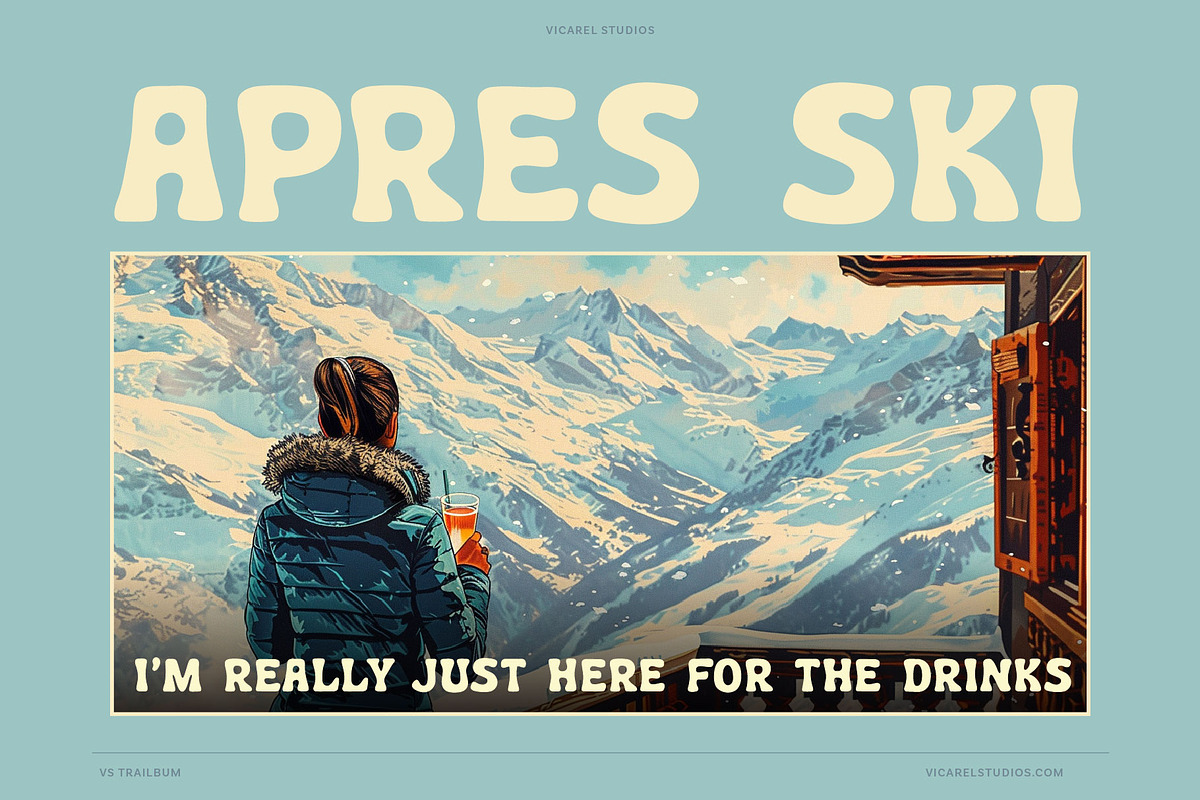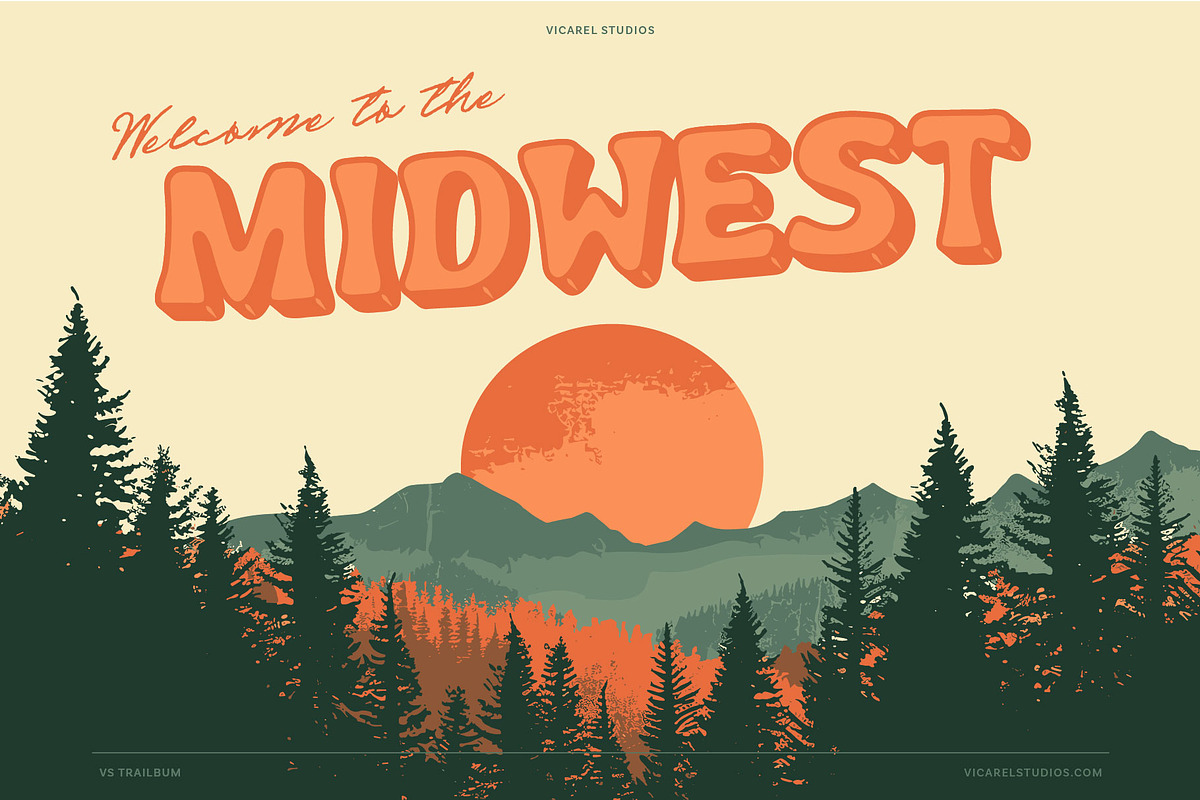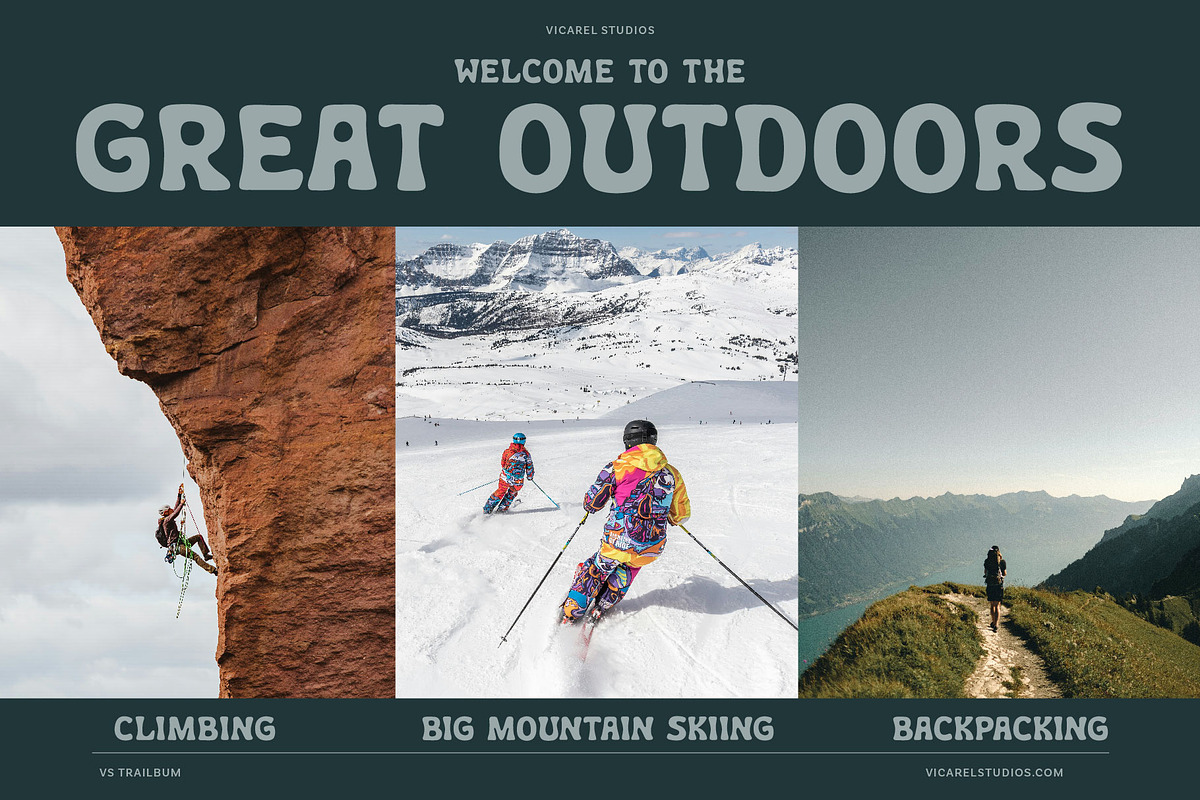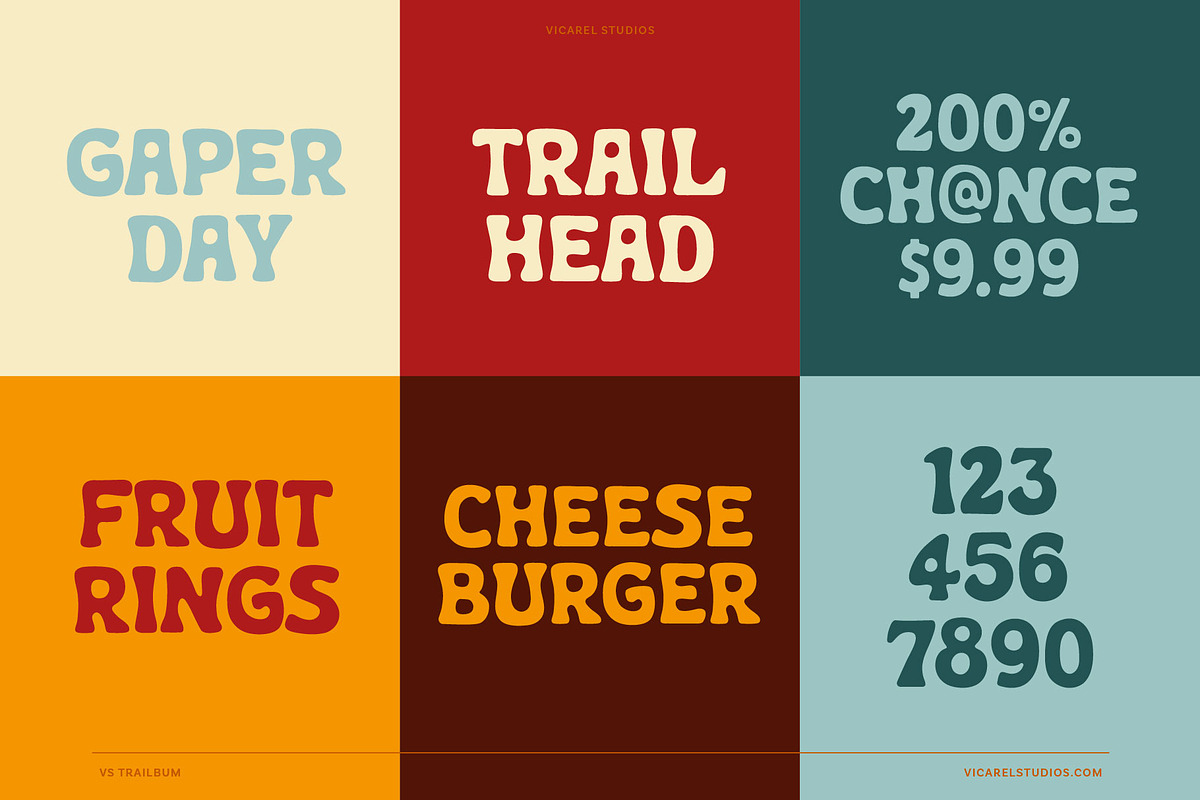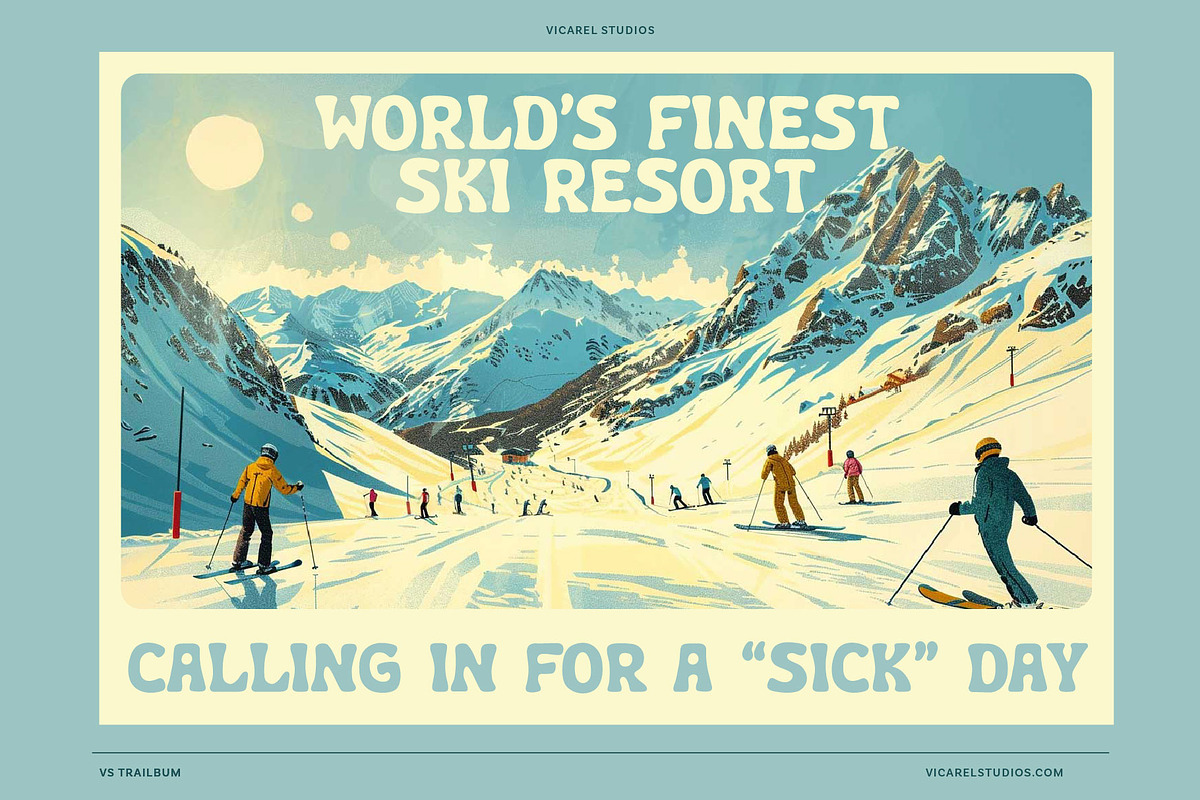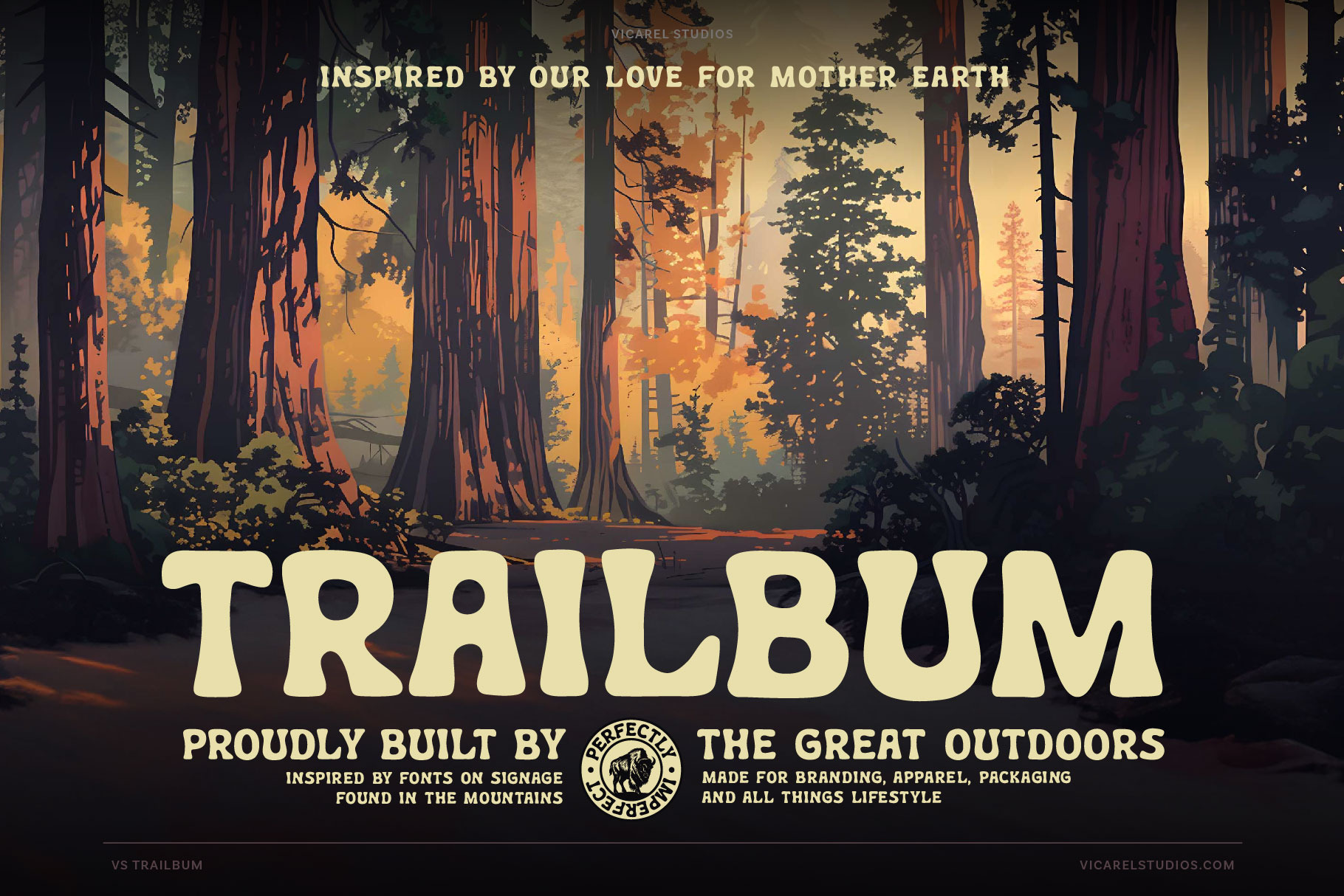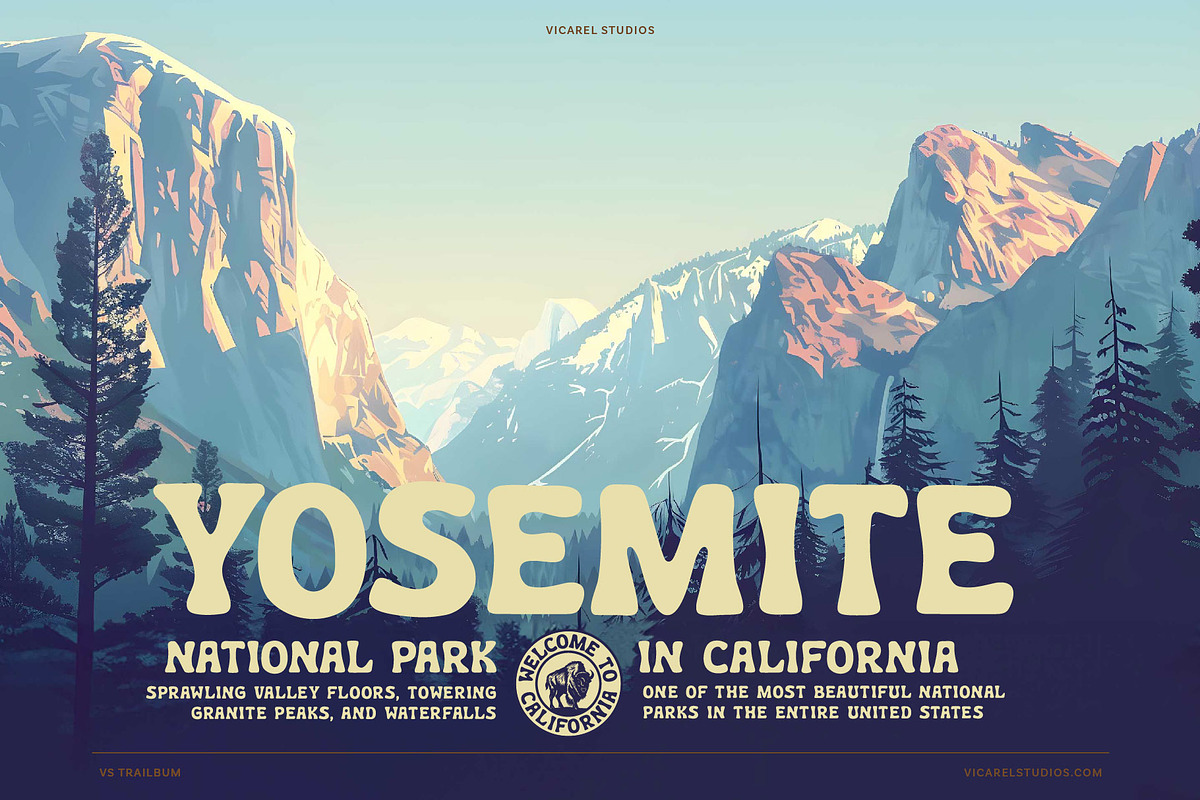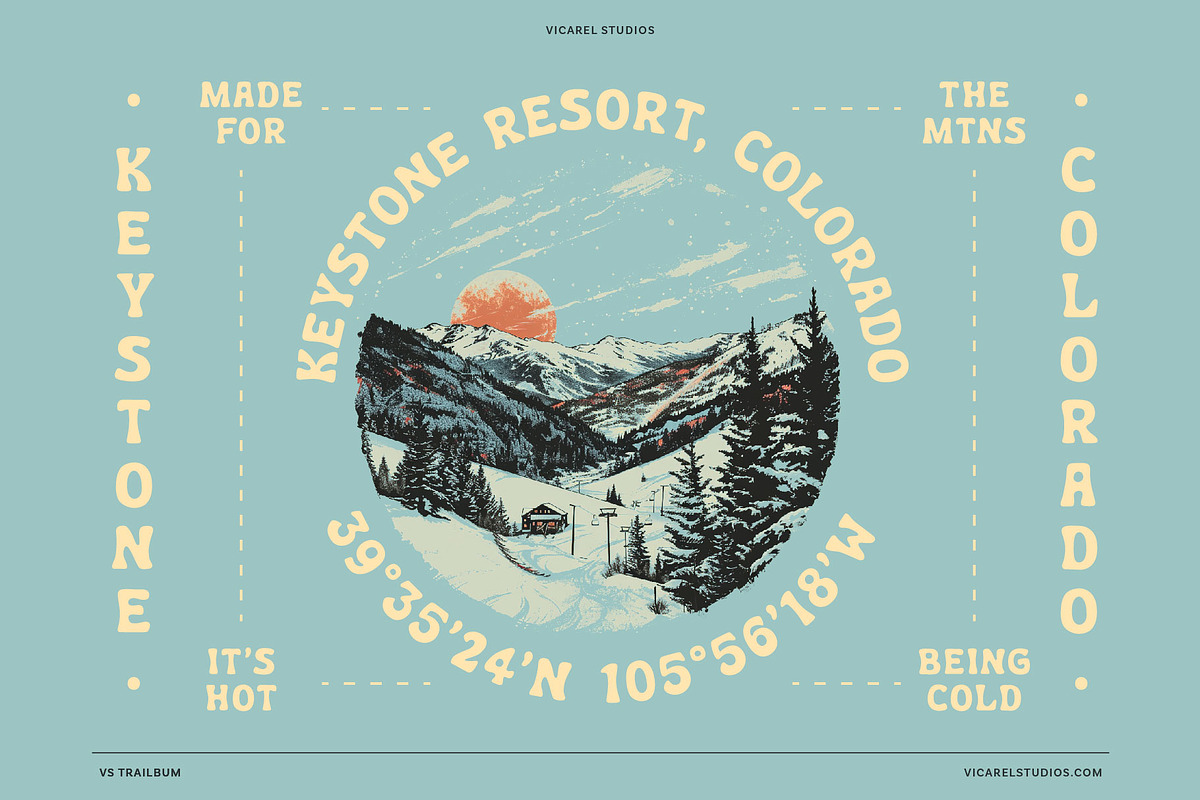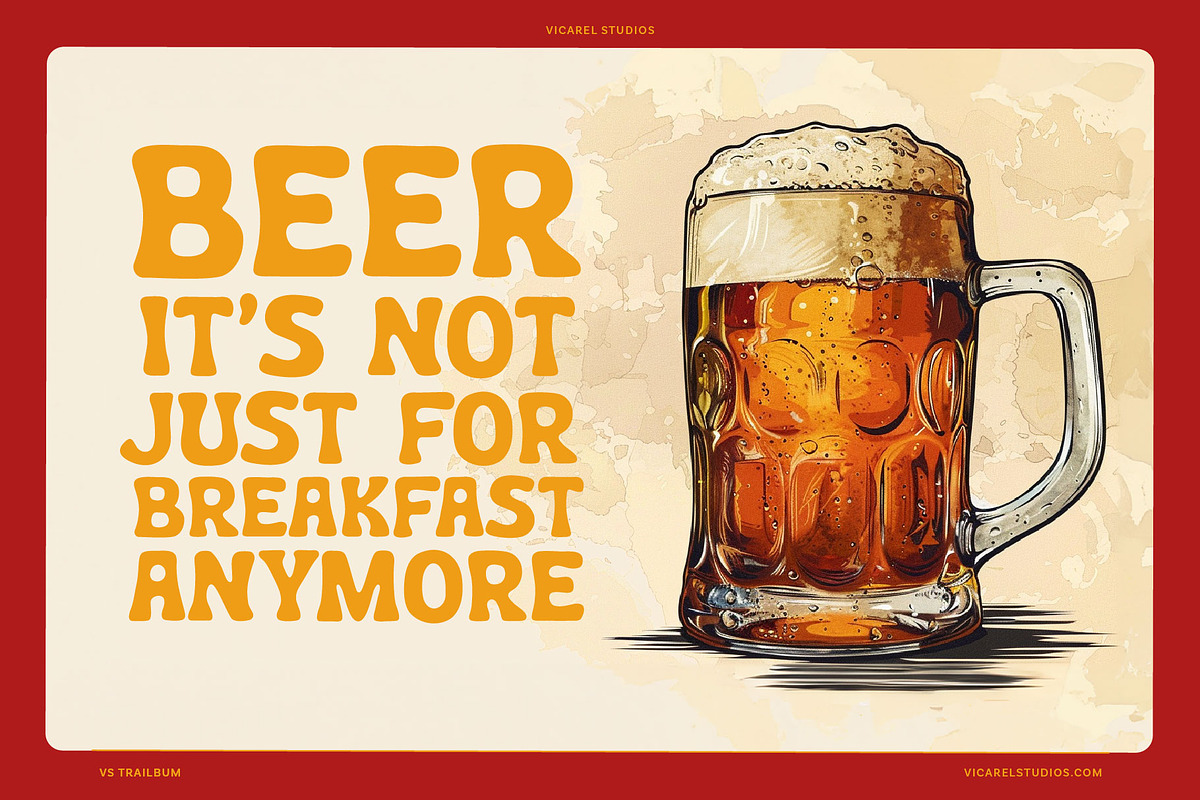
Trailbum – National Park Font
Introducing Trailbum, an outdoor-inspired sans serif font that embodies the adventurous spirit of the trail lifestyle. Capturing the essence of a “trail bum” — someone who prioritizes hiking and outdoor exploration above all else — Trailbum is designed for those who want to infuse the rugged beauty of nature into their projects.
Trailbum takes its design cues from the iconic trail signage found in national forests and mountain towns, making it the perfect font projects that seek to evoke a sense of adventure and the great outdoors. This bold, soft, and approachable display font effortlessly combines rustic charm with modern readability, making it versatile for various applications.
Its imperfect yet strong letterforms are inspired by National Park poster fonts, imbuing an inherent sense of adventure into your work. Whether you're creating a logo, a poster, packaging design or other brand collateral, Trailbum adds a touch of wilderness font magic to your work. Trailbum’s approachable characters and design make it an ideal font for projects related to the outdoors, adventure gear, travel, and nature conservation and will be sure to resonate with audiences who love the wild and untamed beauty of nature :)
Whether you’re working on a National Park poster design, designing for an outdoor travel blog, or developing a distinctive brand identity, Trailbum will delivers a bold, memorable impact.
- ALL CAPS
- DIGITS